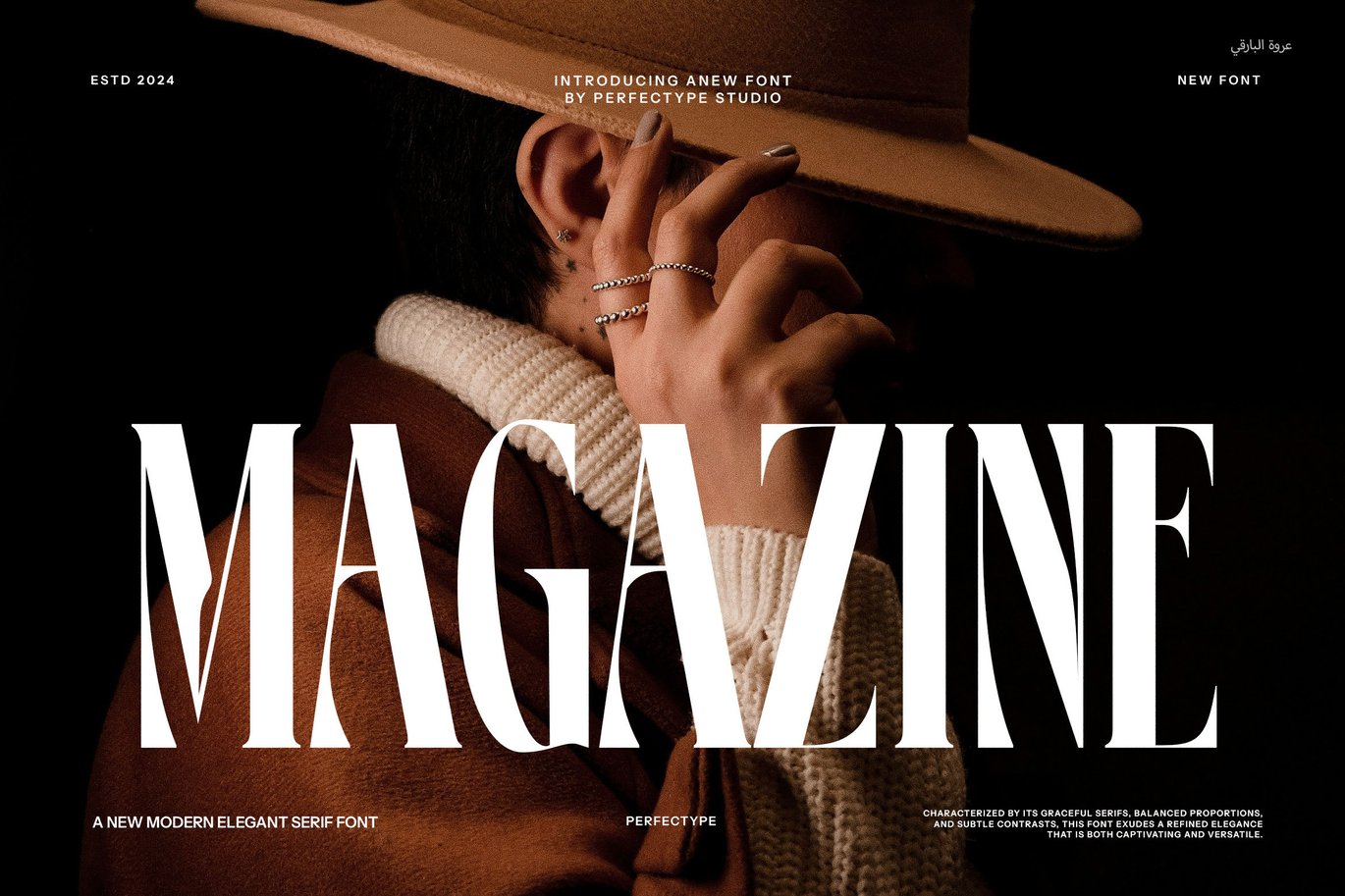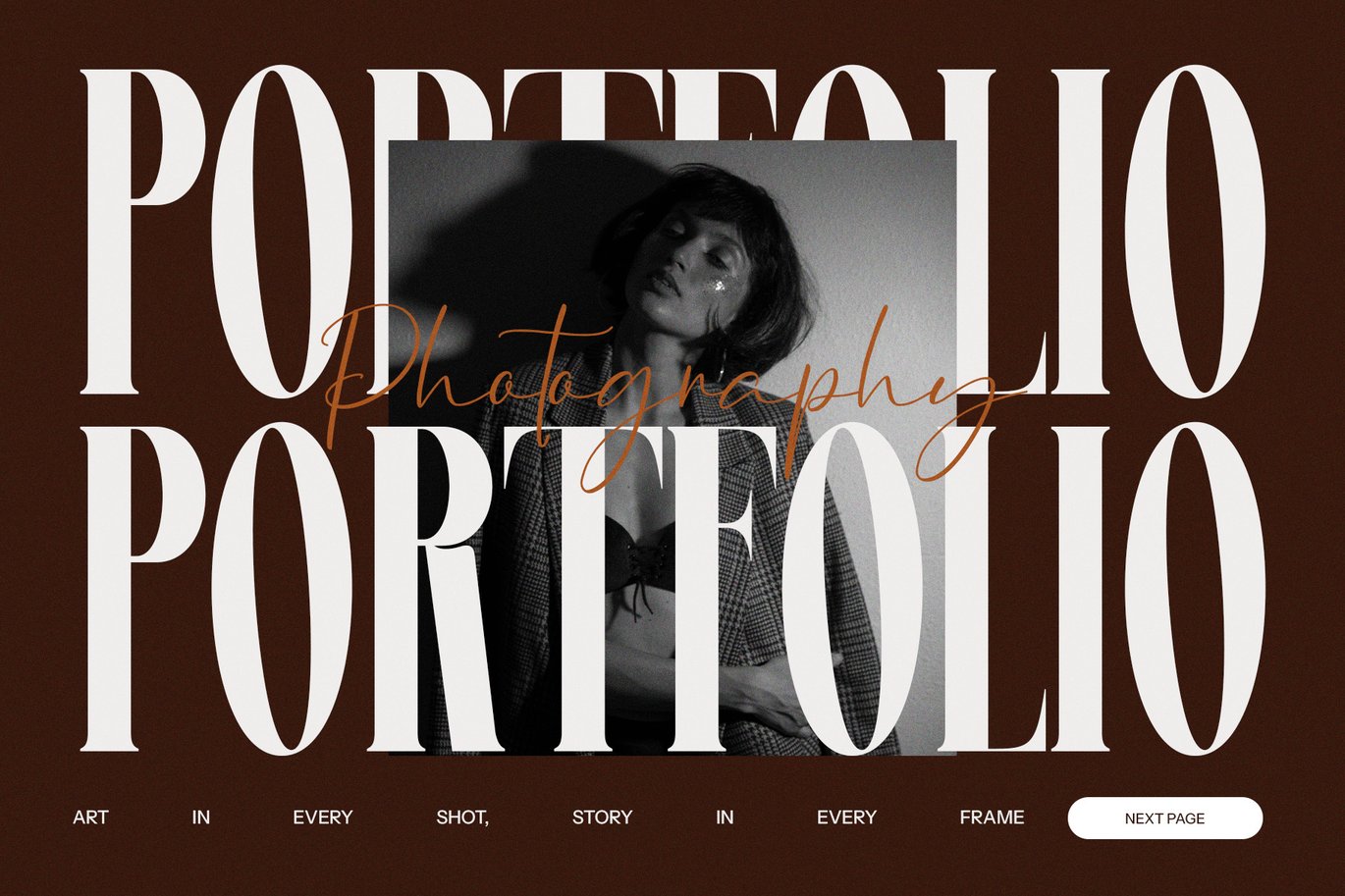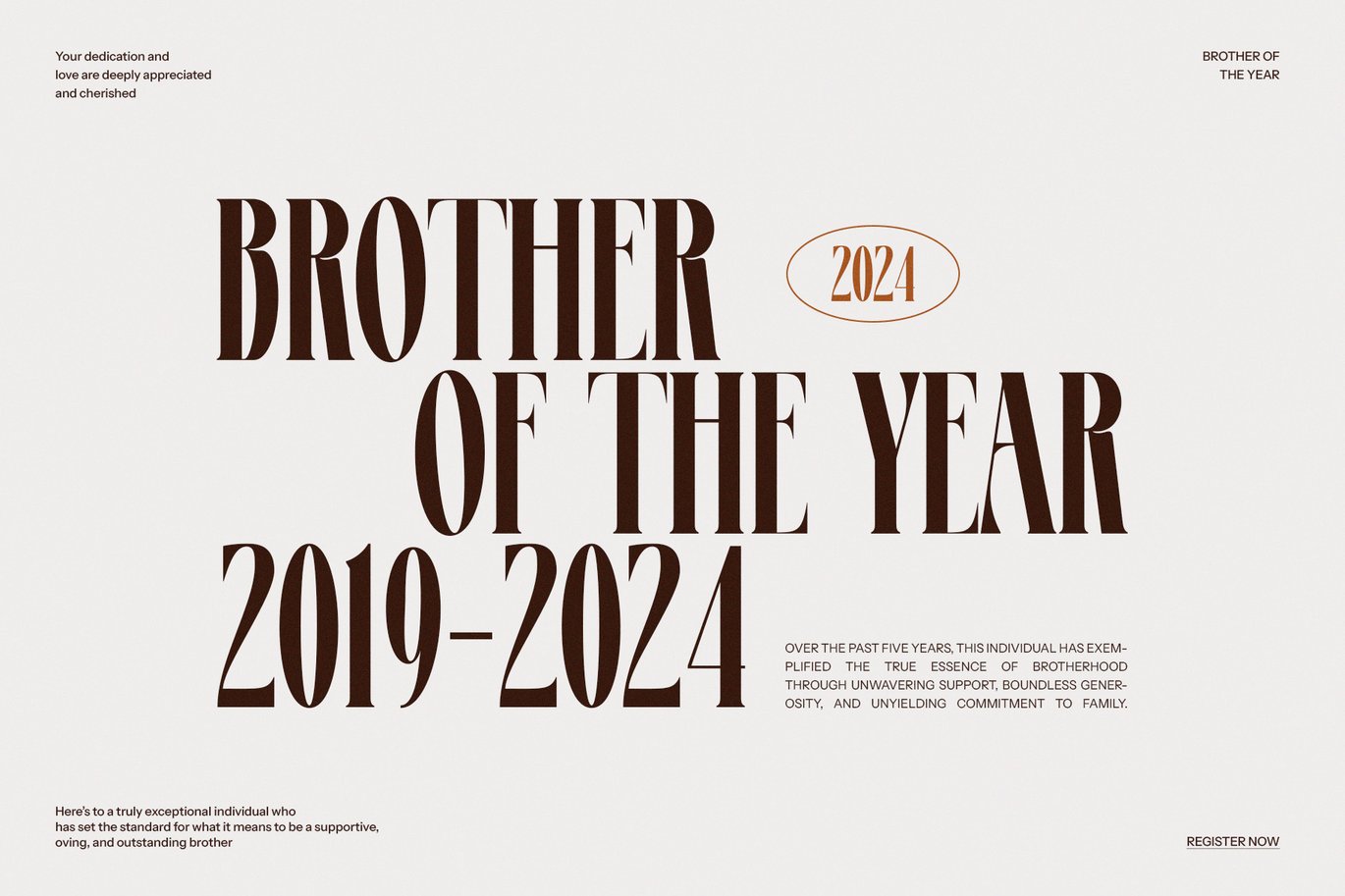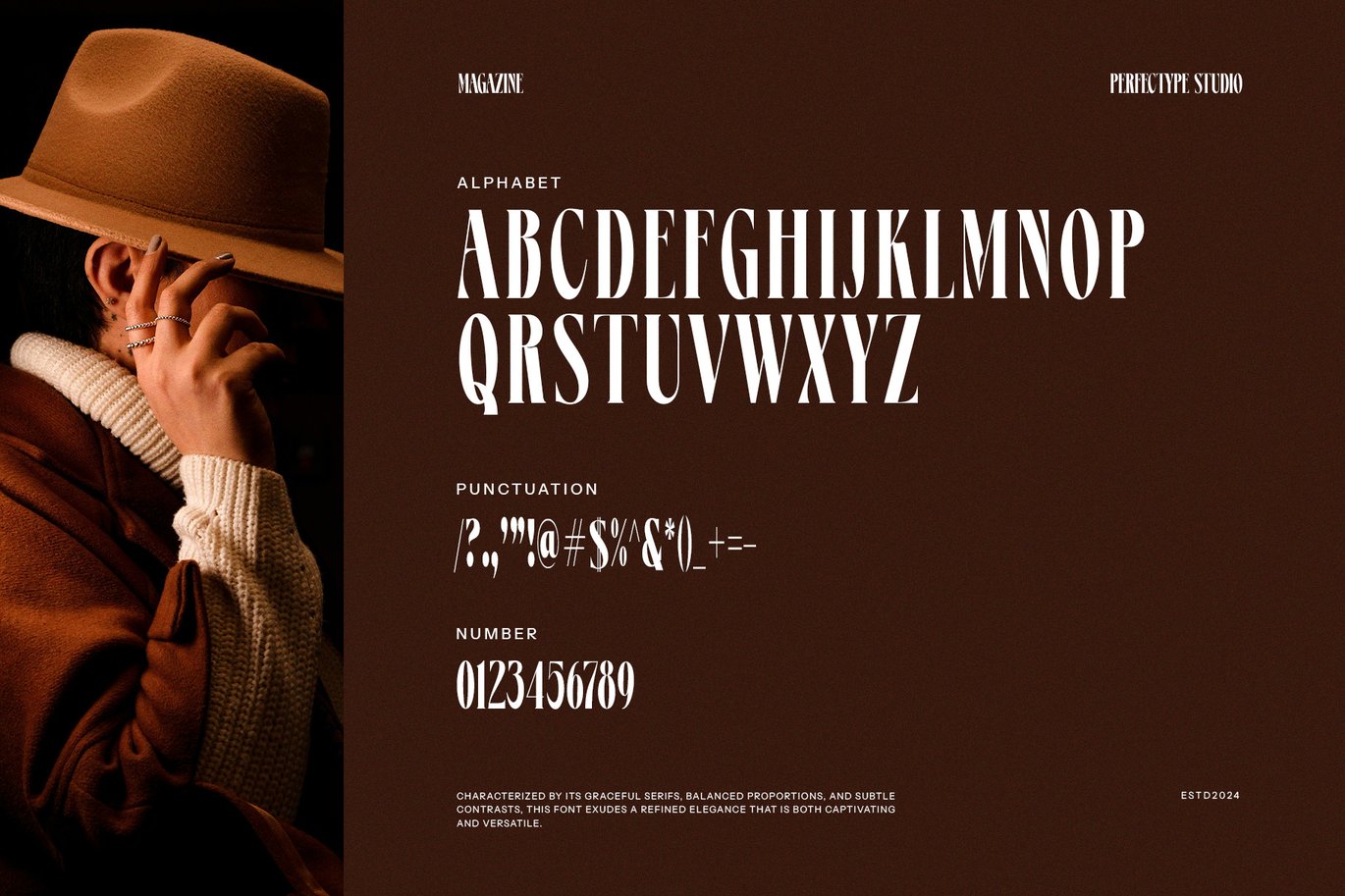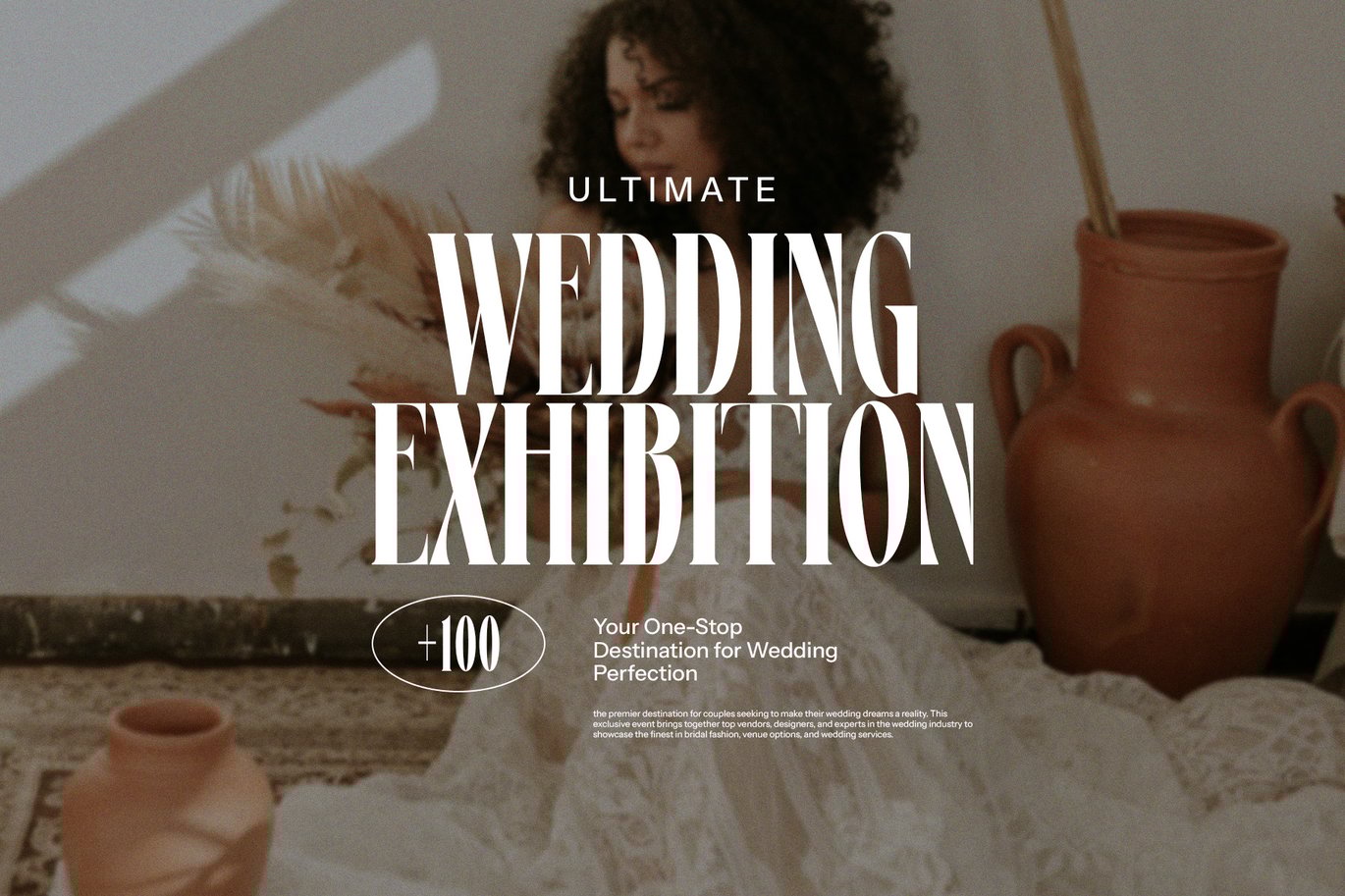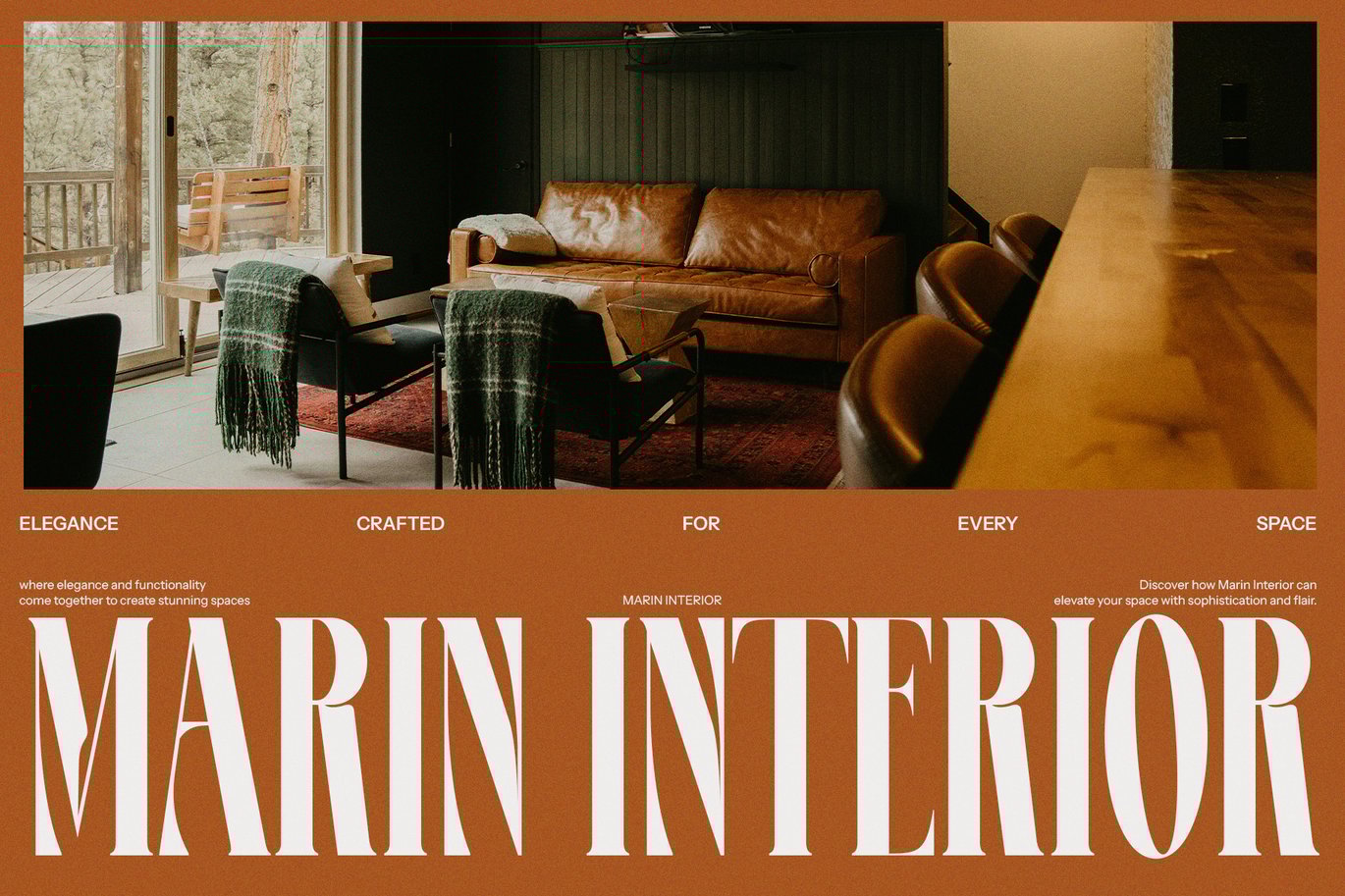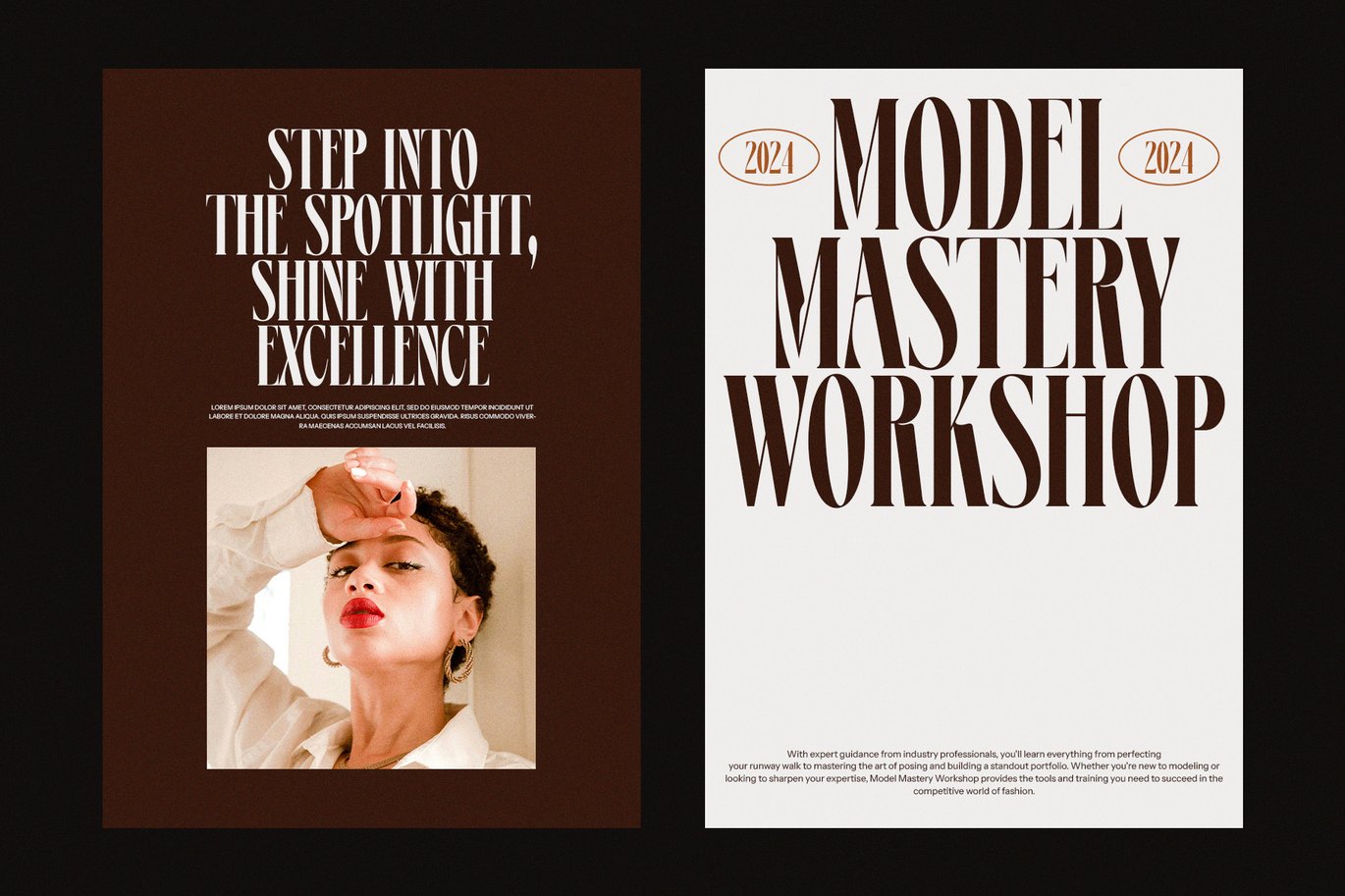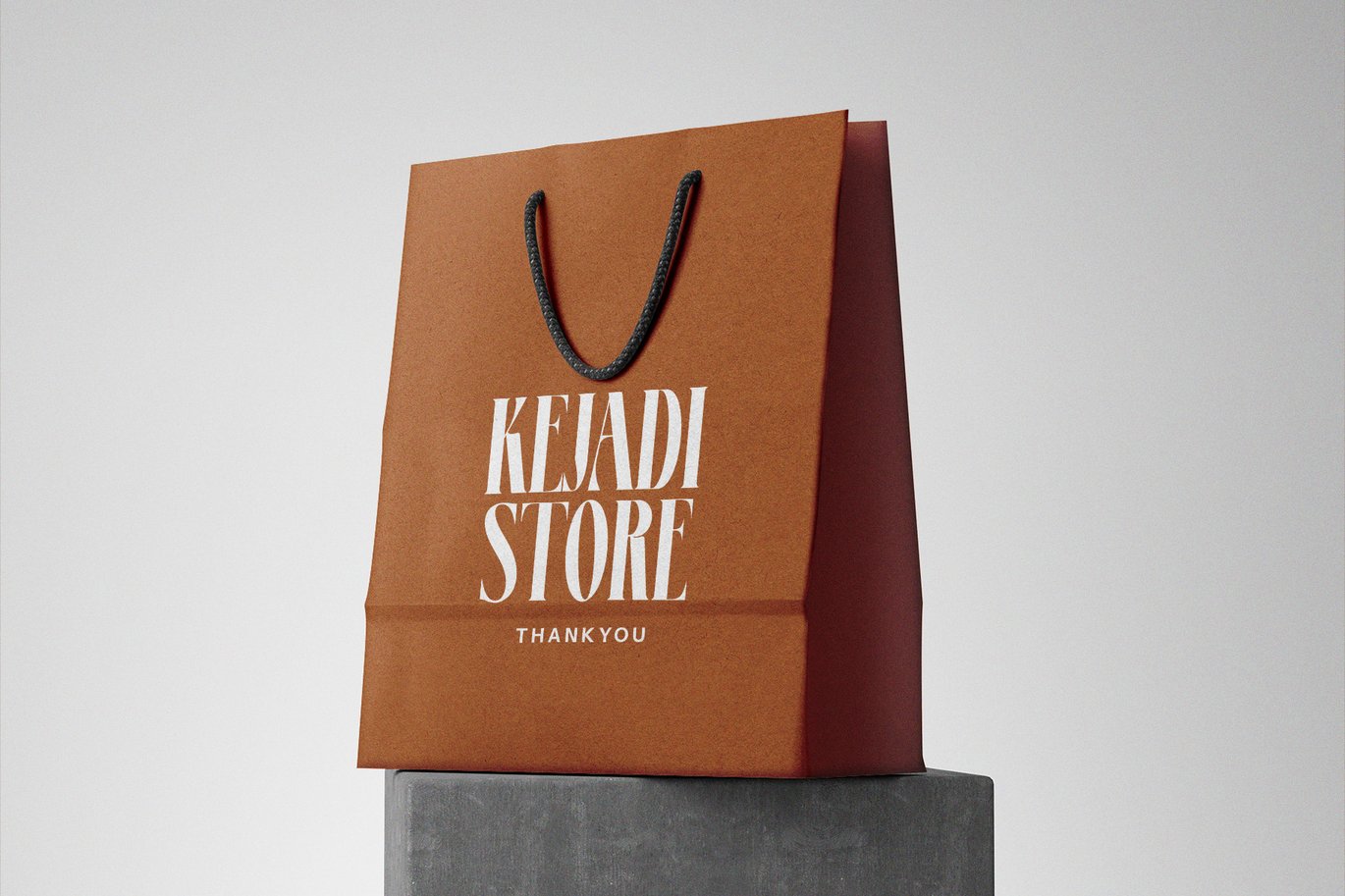
Magazine Elegant Serif Font
Introducing the Magazine Elegant Serif Font, a sophisticated and stylish typeface that exudes class and timeless appeal. Designed with an emphasis on both elegance and legibility, this font is perfect for a wide array of design projects, from high-end branding to eye-catching editorial layouts. Its refined serif style offers a perfect blend of tradition and modernity, making it ideal for those looking to elevate their design aesthetics.
The Magazine Elegant Serif Font is a versatile typeface that suits many industries, including fashion, beauty, food, skincare, and corporate branding. Its balanced structure and crisp, clean lines make it a perfect choice for logos, websites, product packaging, and advertisements. Whether you’re creating a chic magazine spread or an elegant flyer, this font effortlessly elevates your design with its graceful, sophisticated style.
Perfect for creating compelling headlines, captivating articles, or stylish promotional content, the Magazine Elegant Serif Font enhances readability while delivering a luxurious, high-end feel. It’s an ideal option for businesses and agencies aiming to craft visually stunning materials that leave a lasting impression on their audience. Whether it’s for websites, social media graphics, or print materials, this font’s refined and professional appearance ensures that your content stands out with style.
The Magazine Elegant Serif Font is also a fantastic choice for design tools like Canva, allowing you to create elegant and impactful designs with ease. It is an excellent addition to your creative toolkit, whether you’re designing for beauty brands, lifestyle blogs, or corporate firms.
With its timeless elegance and versatile appeal, the Magazine Elegant Serif Font is the perfect choice for anyone seeking a font that combines luxury, readability, and modern sophistication. Elevate your brand and design projects with this stunning serif typeface.